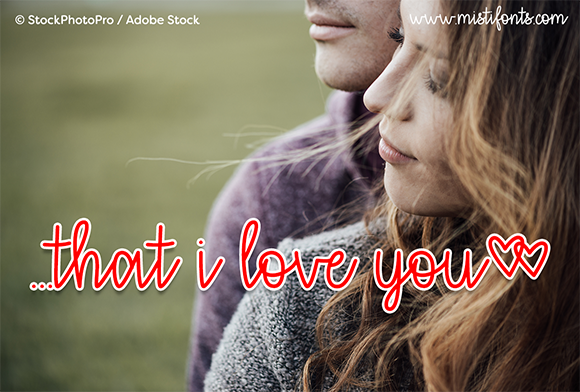
That I Love You Font
About That I Love You Font
that i love you is a cute cursive font that is perfect design and craft projects!
Special Symbols
Type * (asterisk) for the hearts